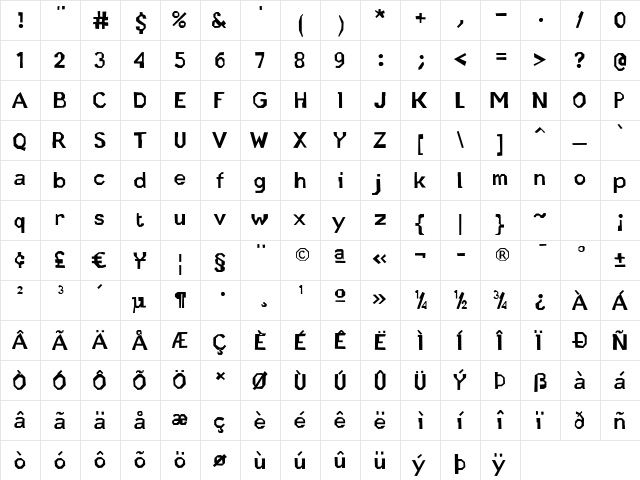
Quickstep Sans Bold
Design Context for Quickstep Sans Typeface
Quickstep Sans takes a measured approach to typography — its balanced proportions and neutral character make it a reliable workhorse for both digital and print work. The heavy weight commands attention and anchors typographic hierarchies.